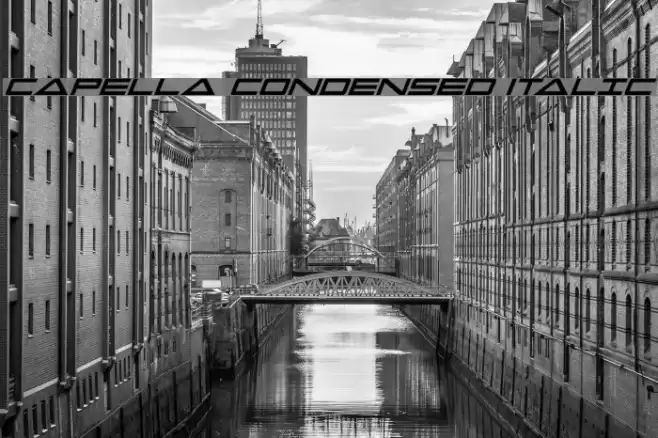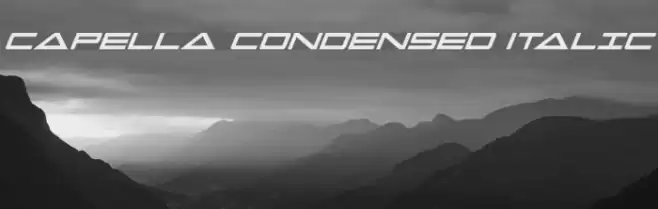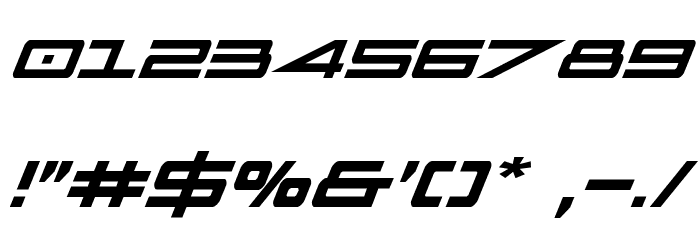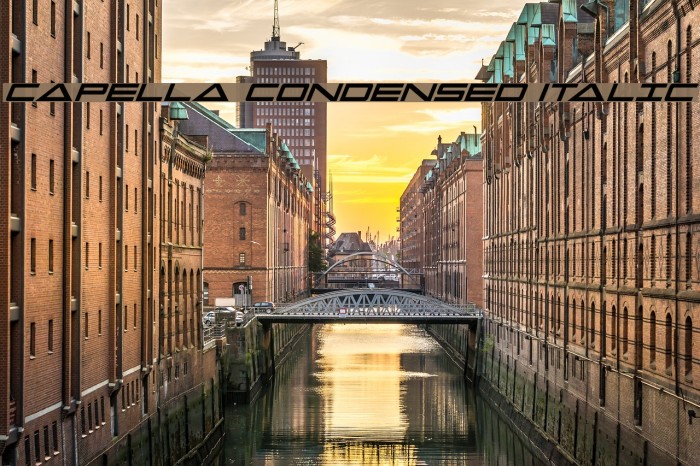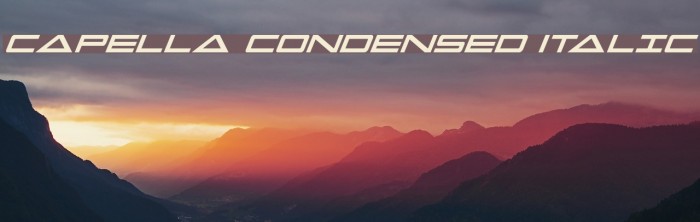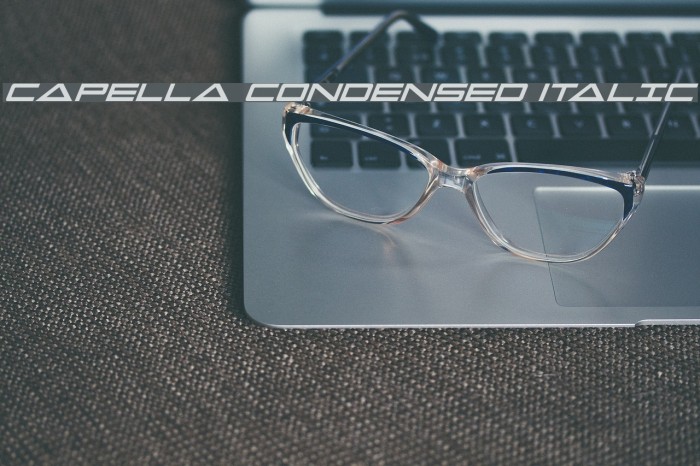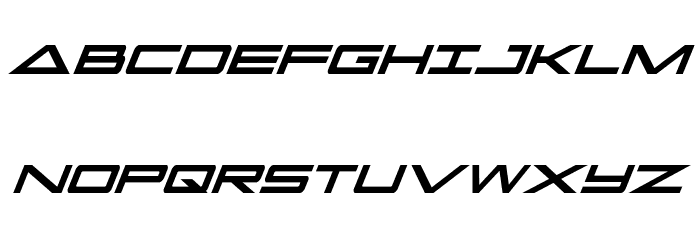
Capella Condensed Italic Font
Capella Condensed Italic Description
This font features a sleek, italicized design with a condensed structure, giving it a modern and dynamic appearance. The characters are sharply angled, creating a sense of motion and speed. The uniform stroke width across all characters provides a consistent and clean look, while the slanted orientation adds a touch of elegance and sophistication. The spacing between characters is tight, enhancing the compact and streamlined feel. This font is particularly well-suited for projects that require a futuristic or high-tech aesthetic, making it ideal for branding, advertising, and digital interfaces.
A sleek, italicized, and condensed font with a modern, dynamic appearance from Uncategorized fonts.
- Proposed Projects: Ideal for branding, advertising, digital interfaces, and projects requiring a futuristic aesthetic.
- Character Spacing: Tight